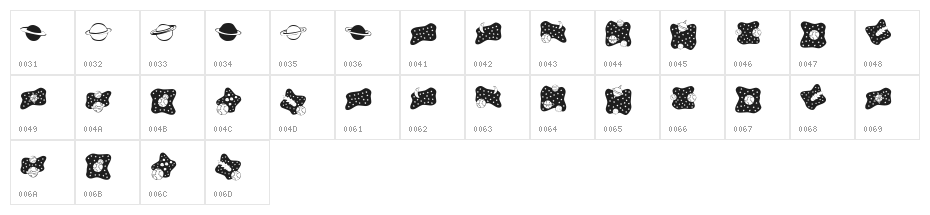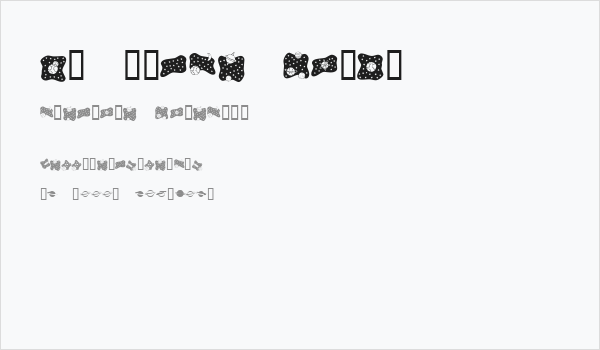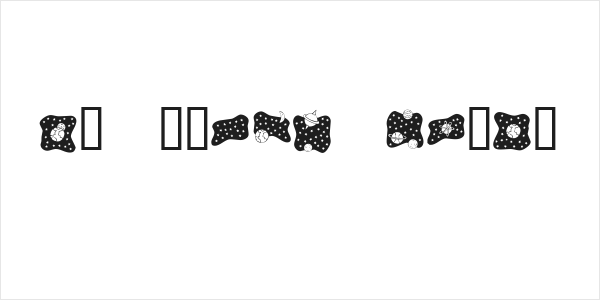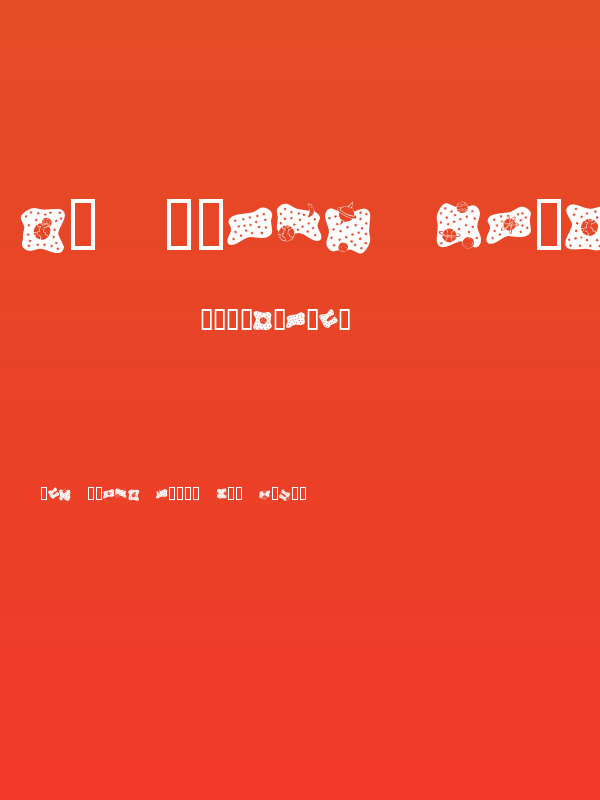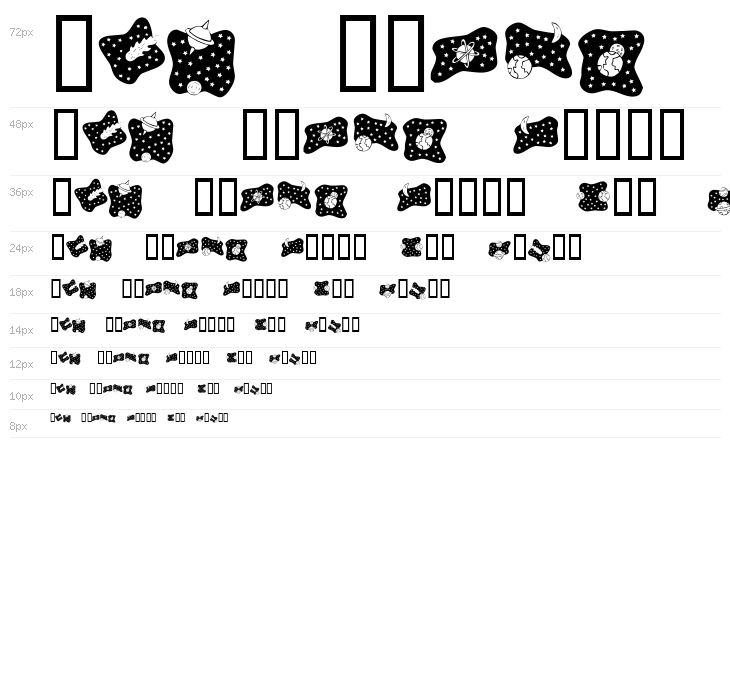
This font is a decorative and playful typeface inspired by space-themed elements. Each character is represented by unique illustrations of asteroids, planets, and other celestial motifs, making it highly distinctive and visually engaging. The design is bold and whimsical, with a focus on capturing the imagination and wonder of outer space. The characters are intricately detailed, showcasing a variety of textures and shapes that add depth and interest. This font is perfect for projects that aim to evoke a sense of adventure and exploration, particularly those targeted at a younger audience or themed around science fiction.
Use CaseLogos, Posters, Creative Titles
Proposed ProjectsIdeal for children's books, sci-fi themed posters, educational materials about space, and creative event invitations.